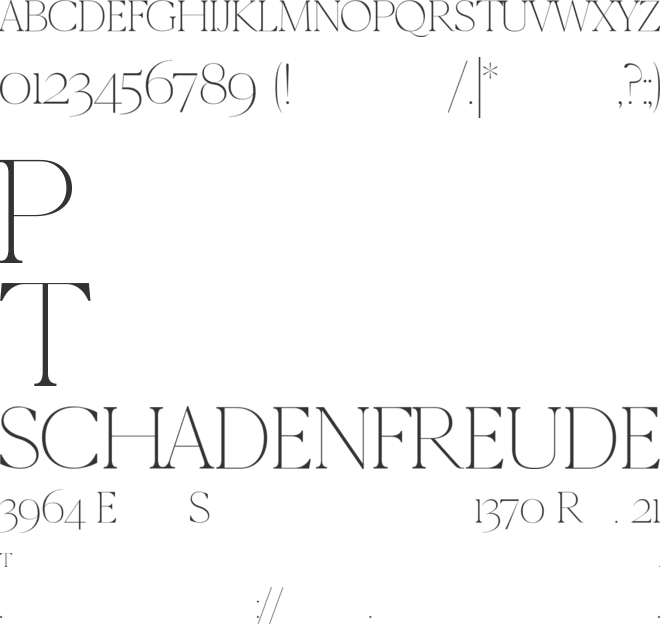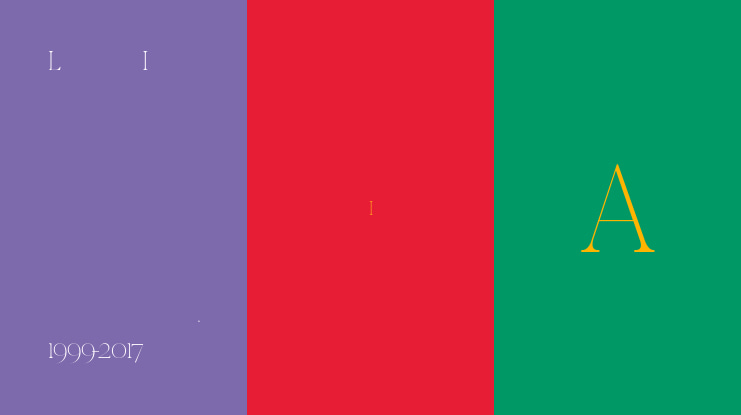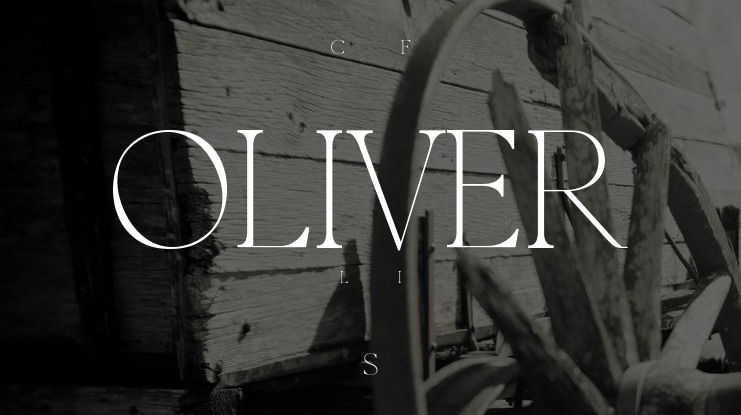
OLIVER Font Family
🎨 Font Name: Oliver by Minimalist Art Studio
🎨 Font Description: Oliver is a classic elegant serif with multilingual support—ideal for refined branding, editorial layouts, and timeless packaging.
✔ Complete Latin set + multilingual diacritics
✔ Alternates, stylistic sets & ligatures
✔ Numbers, small caps, and extended punctuation
✔ Bonus italics and family styles